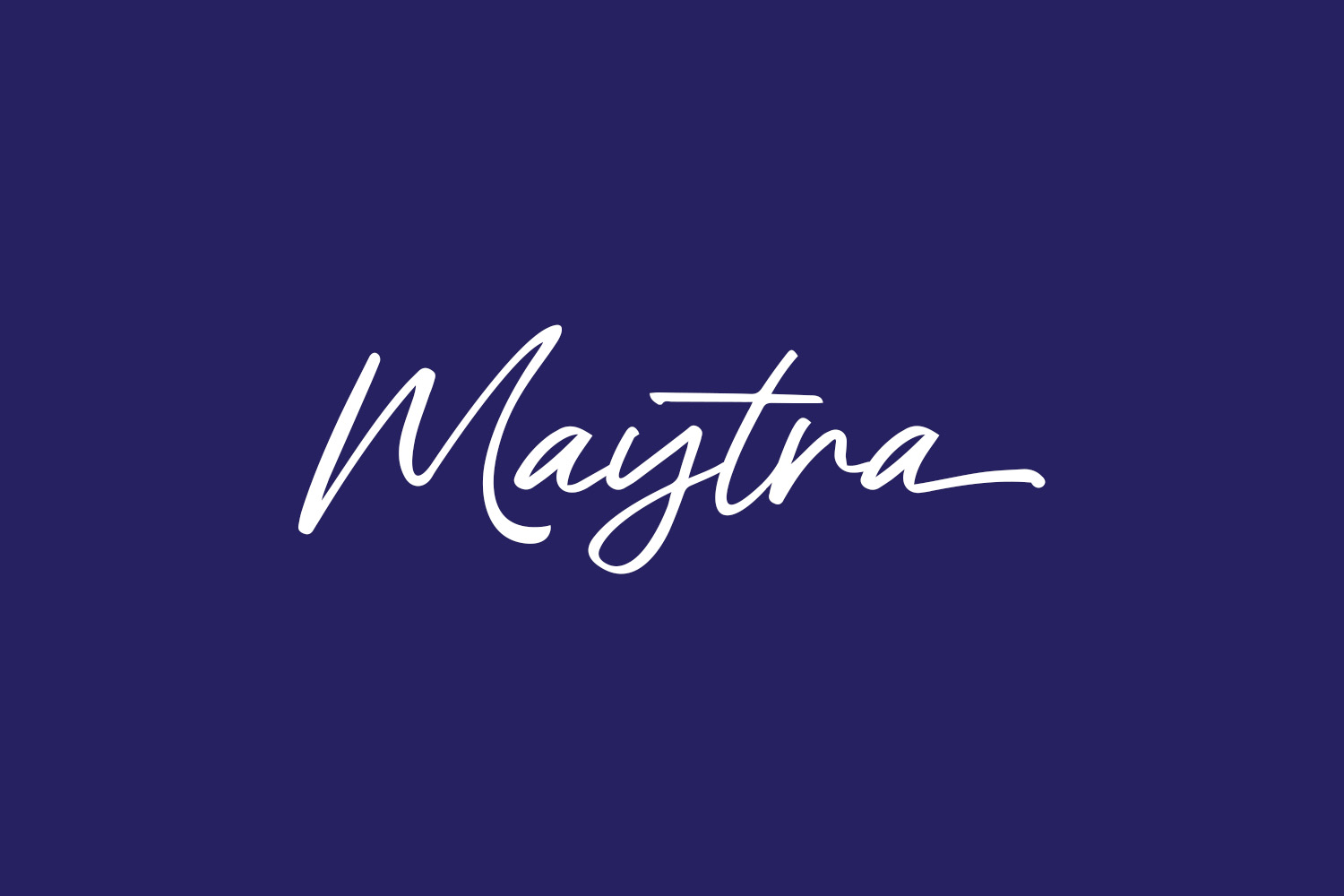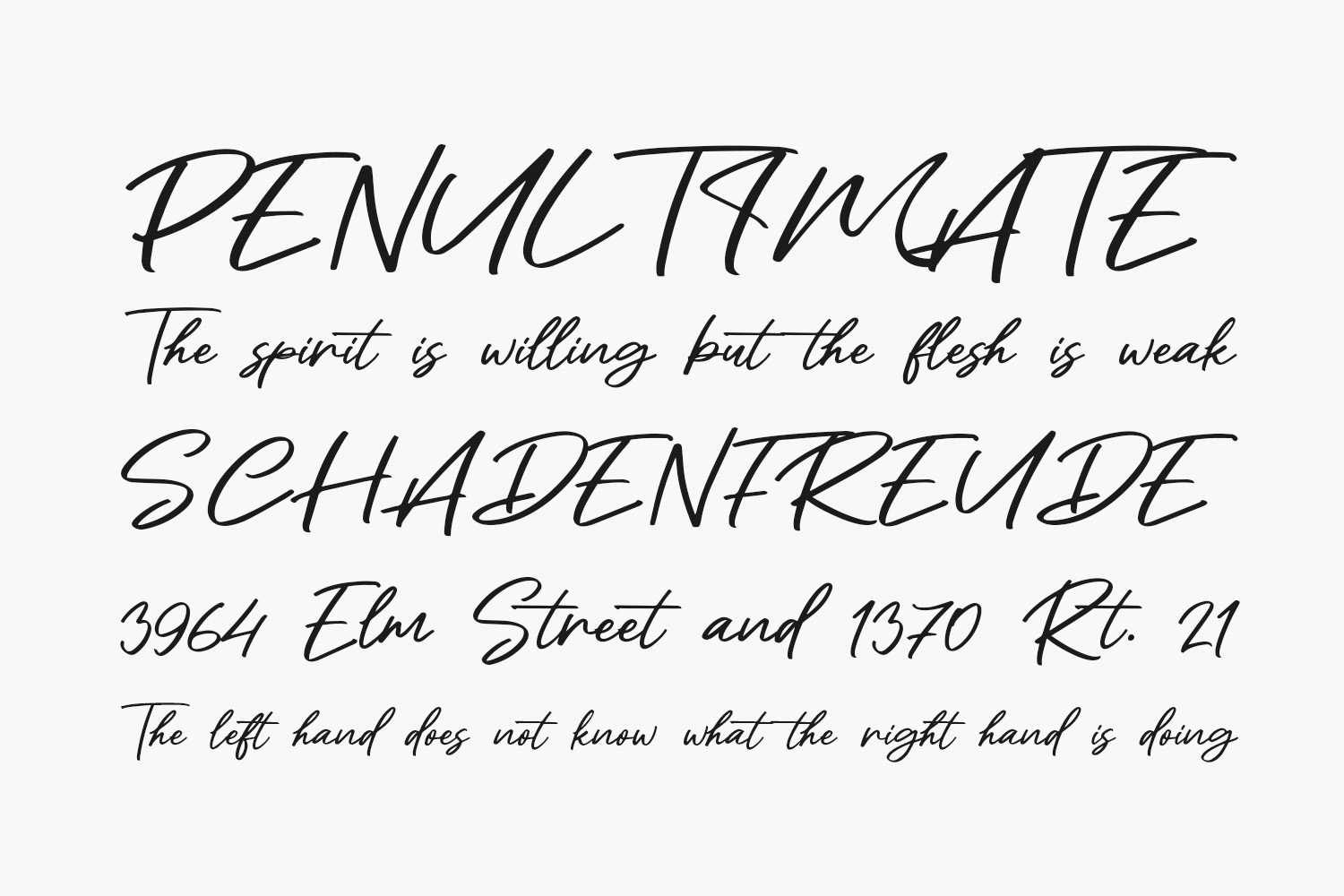
Maytra Free Font is a modern and beautiful script font perfect for posters, logos, magazines, book covers, banners, and many more. Get this amazing freebie, and use it to create lovely designs. Maytra Free Font was designed by Khurasan and is free for personal or commercial use.